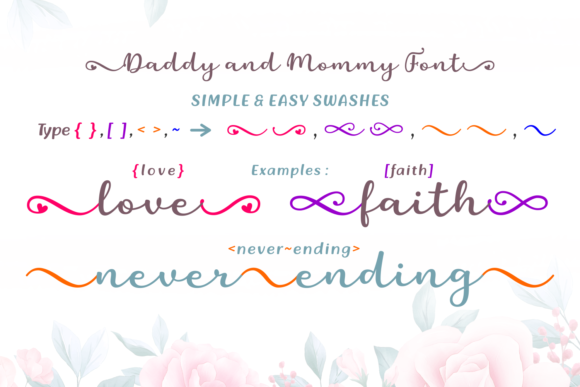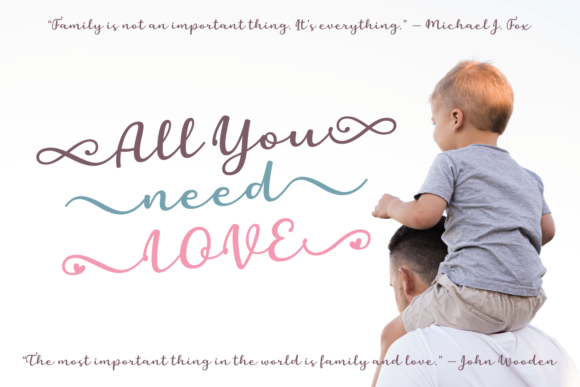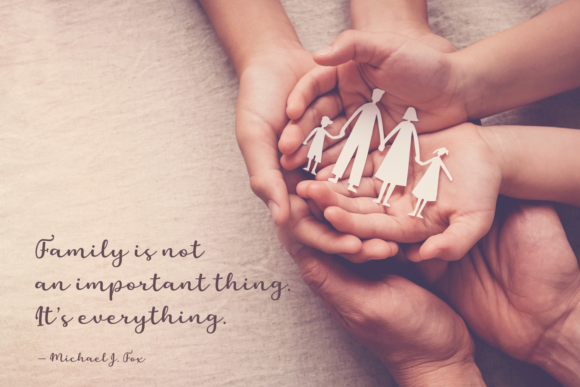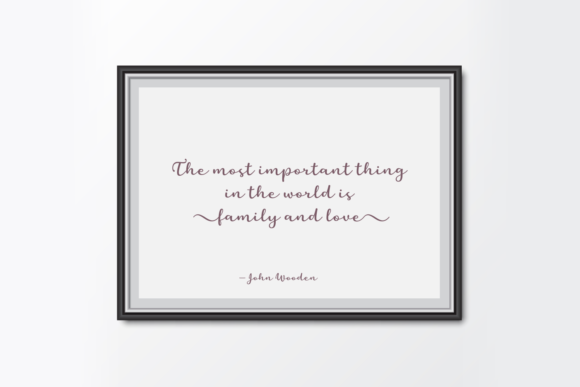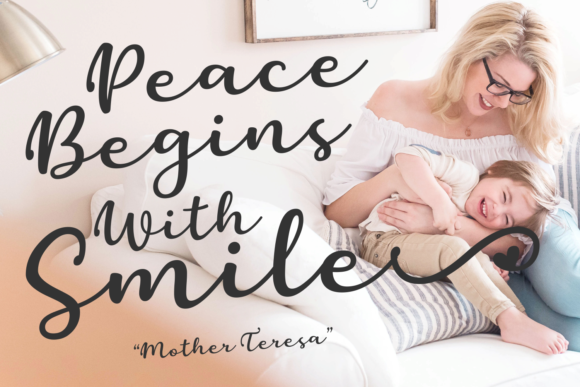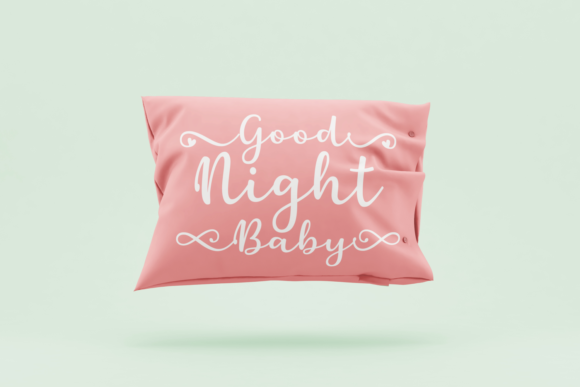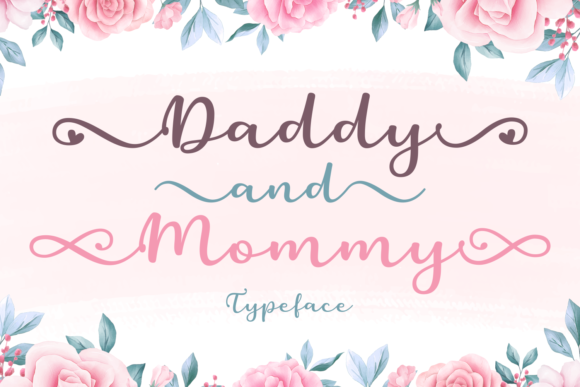
Daddy and Mommy Font: The Ultimate Guide to This Charming Handwritten Font
Are you a designer or crafter looking for a font that exudes warmth and friendliness? Look no further than the Daddy and Mommy font! This adorable handwritten font is perfect for a wide range of creative projects, from Instagram posts to DIY crafts. In this article, we’ll dive into the features and benefits of the Daddy and Mommy font, and explore how you can use it to take your designs to the next level.
What is the Daddy and Mommy Font?
The Daddy and Mommy font is a beautiful, casual handwritten font that is sure to capture the hearts of designers and crafters alike. With its incredibly friendly feel, this font is perfect for creating designs that are approachable, relatable, and engaging. Whether you’re working on a branding project, a social media post, or a DIY craft, the Daddy and Mommy font is sure to bring a touch of warmth and personality to your work.
Key Features of the Daddy and Mommy Font
So, what makes the Daddy and Mommy font so special? Here are just a few of its key features:
- Gorgeous Swashes: The Daddy and Mommy font features stunning swashes that add a touch of elegance and sophistication to your designs. Whether you’re looking to create a bold statement or a subtle accent, these swashes are sure to impress.
- Ligatures: In addition to its swashes, the Daddy and Mommy font also features ligatures that make it incredibly versatile. With ligatures, you can create unique and complex designs that are sure to stand out.
- Cute and Casual: The Daddy and Mommy font is a cute and casual handwritten font that is perfect for creating designs that are friendly and approachable.
Uses for the Daddy and Mommy Font
So, what can you use the Daddy and Mommy font for? The possibilities are endless! Here are just a few ideas to get you started:
- Instagram Fonts: Use the Daddy and Mommy font to create stunning Instagram posts that are sure to grab the attention of your followers.
- Calligraphy Scripts: With its gorgeous swashes and ligatures, the Daddy and Mommy font is perfect for creating beautiful calligraphy scripts for DIY projects.
- Branding: Use the Daddy and Mommy font to create a unique and memorable brand identity that reflects your personality and style.
- Crafts: Whether you’re working on a scrapbooking project, a card, or a gift tag, the Daddy and Mommy font is sure to add a touch of personality and charm.
Tips for Using the Daddy and Mommy Font
Here are a few tips for getting the most out of the Daddy and Mommy font:
- Experiment with Swashes: Don’t be afraid to experiment with the swashes and ligatures in the Daddy and Mommy font. They can add a touch of elegance and sophistication to your designs.
- Pair it with Other Fonts: The Daddy and Mommy font pairs well with a wide range of other fonts. Try pairing it with a bold sans-serif font for a striking contrast.
- Use it for Headings: The Daddy and Mommy font is perfect for headings and titles. Use it to create bold and eye-catching headings that grab attention.
In conclusion, the Daddy and Mommy font is a charming handwritten font that is perfect for designers and crafters who want to add a touch of warmth and personality to their designs. With its gorgeous swashes and ligatures, this font is incredibly versatile and can be used for a wide range of creative projects. Whether you’re working on a branding project, a social media post, or a DIY craft, the Daddy and Mommy font is sure to bring a touch of friendliness and approachability to your work.